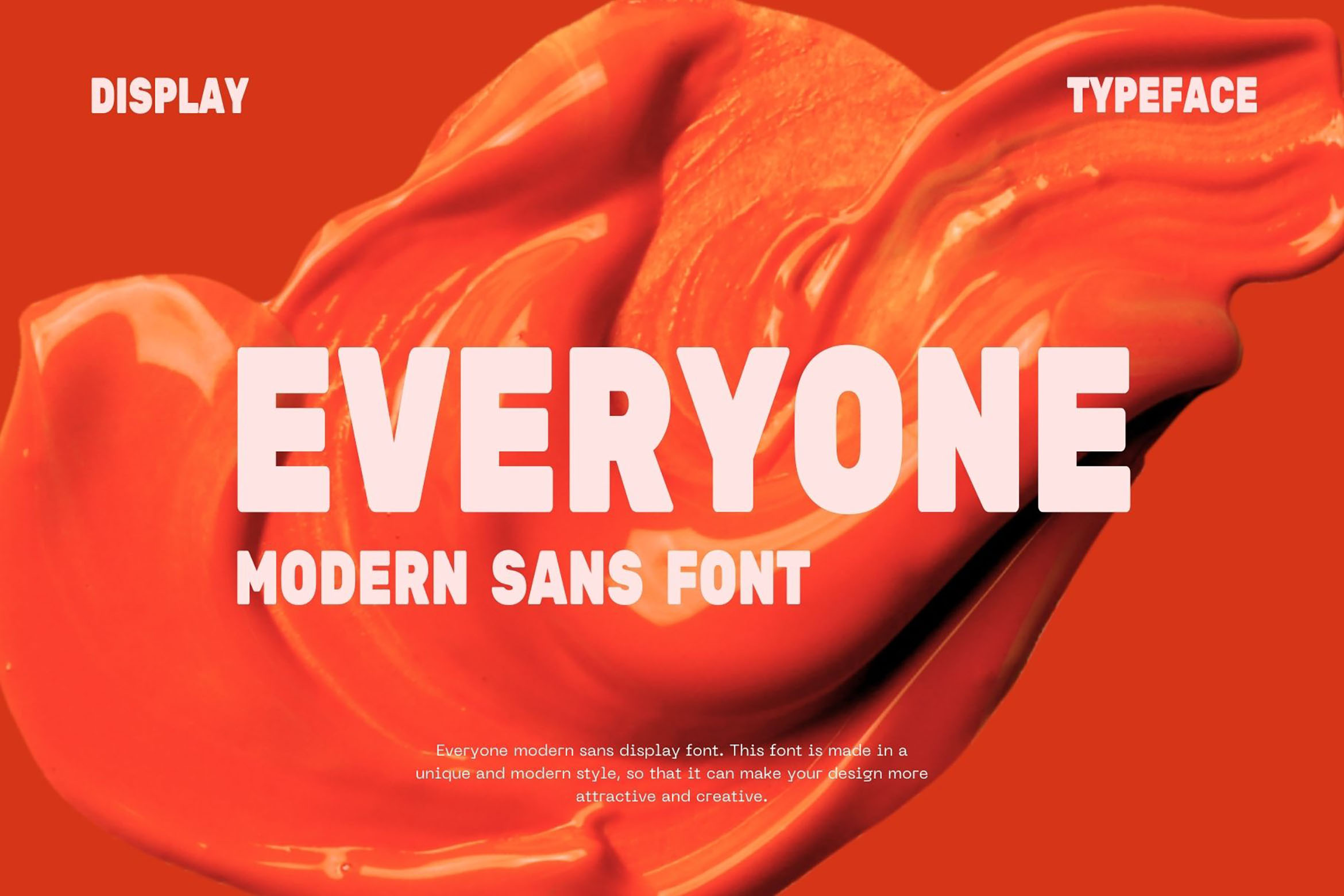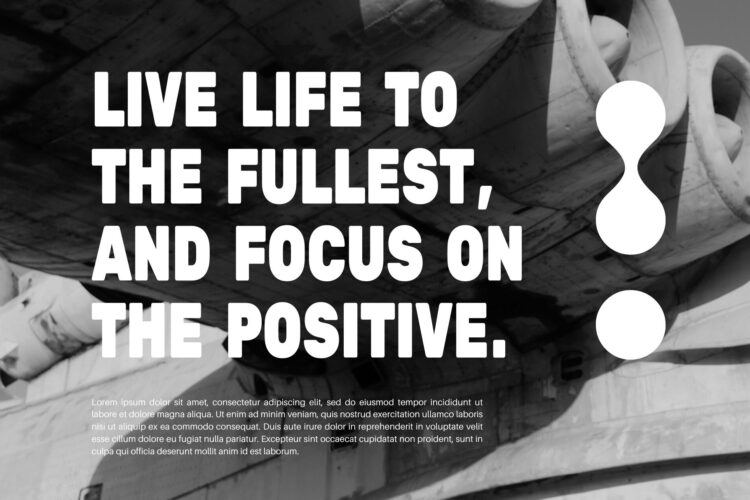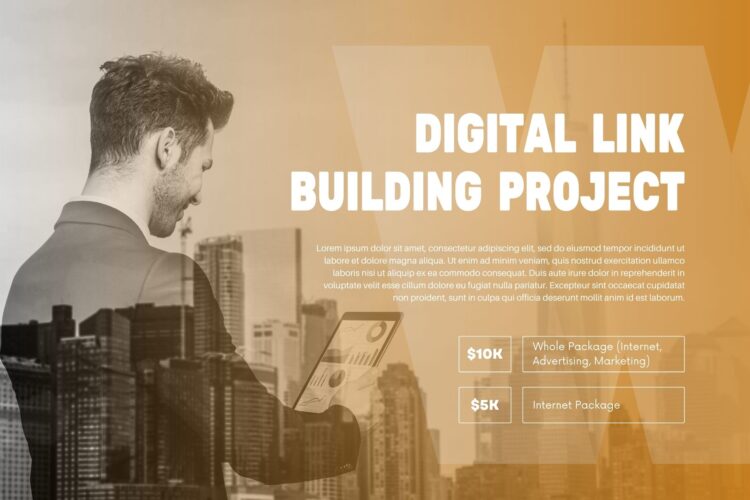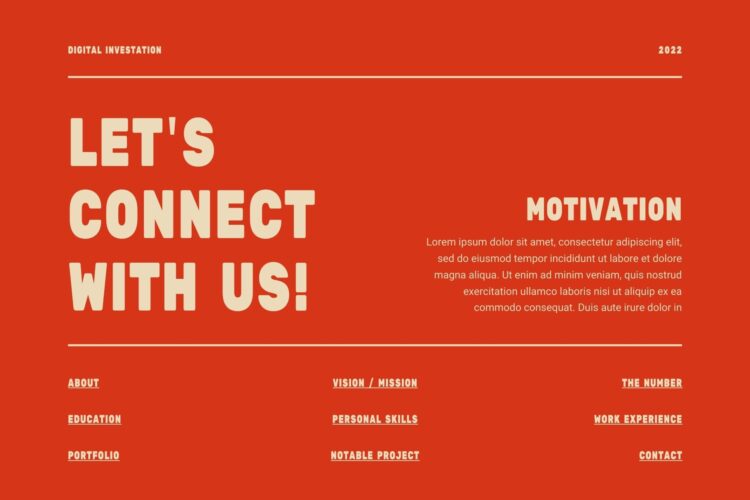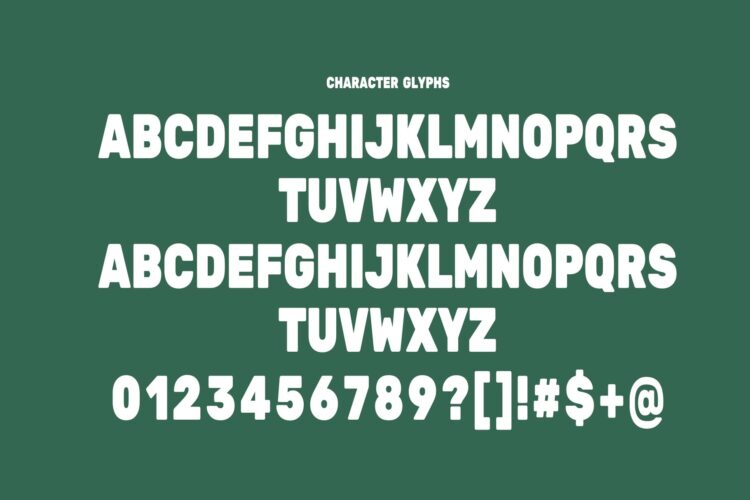
Introducing our new Everyone, modern sans serif font with elegant style this is perfect for branding, logos, invitation, magazines, product packaging and more.
Everyone – Modern Sans Font